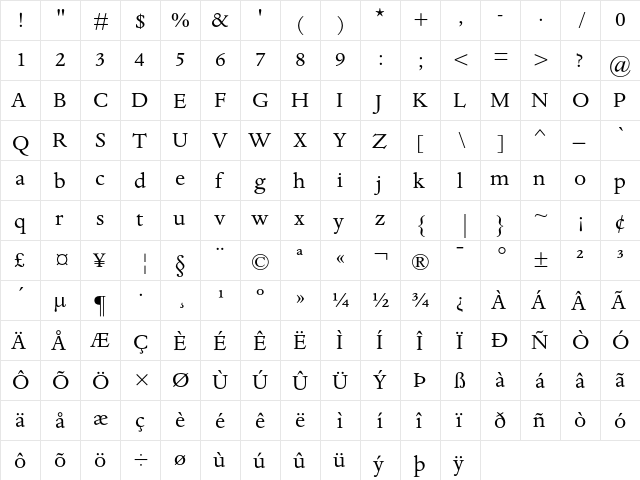
Dante MT Regular
Design Context for Dante MT Typeface
Dante MT is a composed and adaptable typeface that performs quietly and consistently across a wide range of design contexts.
Pro Tip: Pair Dante MT with a font of contrasting weight or personality to build a more expressive typographic hierarchy.